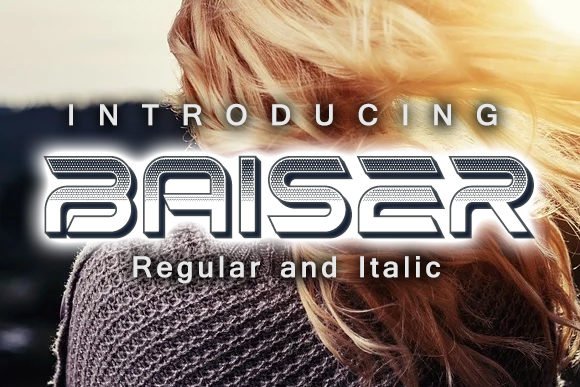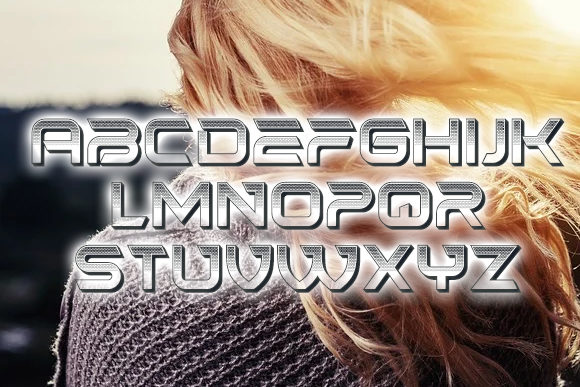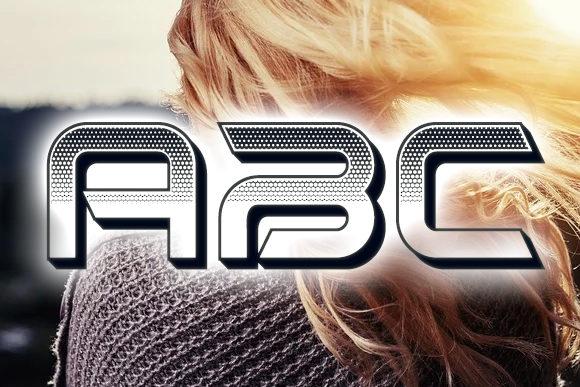
The Perfect Kiss of Typography: Discover Baiser Font
Have you ever stared at a blank canvas, waiting for the perfect font to bring your creative vision to life? The thrill of finding that one special font that elevates your design from ordinary to extraordinary is a moment every designer knows well.
Enter Baiser Font, a stunning hi-tech decorative font that’s sure to leave a lasting impression. Whether you’re working on a poster, banner, or print, Baiser Font’s unique style and flair will add a touch of sophistication and elegance to your design. And with both regular and italic versions available, you can experiment with different looks and feels to find the perfect fit for your project.
As a designer, you know how valuable a great font can be in making your work stand out. That’s why Baiser Font is an absolute must-have in your typography toolkit – it’s the perfect kiss of creativity that will take your designs to the next level.
Baiser Font Key Features
- Unique Characteristics: Baiser Font features a unique blend of elegance and playfulness, with intricate details and subtle nuances that set it apart from other sans-serif fonts.
Baiser Font Review
I recently had the chance to work with the Baiser Font, and I must say it was an interesting experience. Here’s my honest take on this font.
- The Baiser Font has a unique, elegant design that adds a touch of sophistication to any text. It’s perfect for creating a luxurious or high-end feel.
- The font is highly customizable, allowing you to adjust the weight, size, and spacing to fit your specific design needs.
- The Baiser Font is also highly legible, making it easy to read even at small font sizes.
- The Baiser Font can feel a bit overused, especially in certain design contexts. Its unique design can also be a double-edged sword, making it feel too flashy or attention-seeking in some cases.
- The font may not be suitable for use in large blocks of text, as its elegant design can become overwhelming and difficult to read.
Overall, I’d say the Baiser Font is a solid choice for designers looking to add a touch of luxury or sophistication to their designs. While it may have some limitations, its unique design and high level of customization make it a valuable tool in any designer’s arsenal. With careful use and consideration, the Baiser Font can be a real showstopper in the right contexts.
For the most striking results, pair Baiser Font with a clean and modern design aesthetic.
Use bold and italic styles to add emphasis to key messages or headings.
Experiment with different font sizes to create visual hierarchy and balance in your design.
Baiser Font is ideal for:
Headings and titles in fashion, beauty, and lifestyle designs.
Body text in modern and minimalist designs.
Quote overlays and graphics in social media posts and advertising campaigns.
Alternatives to Baiser Font
Playfair Display is a luxurious, high-end serif font ideal for creating elegant and sophisticated designs. It features intricate details, elegant lines, and refined curves, making it suitable for high-end branding, invitations, and formal documents.
Comparison to Baiser Font: While both fonts have elegant qualities, Playfair Display is more formal and luxurious. Baiser Font is more versatile and can be used in a wider range of designs, from formal to casual.
Carolyna Pro is a modern, elegant script font perfect for creating stylish and sophisticated designs. It features flowing lines, beautiful connections, and a touch of femininity, making it suitable for fashion, beauty, and lifestyle branding.